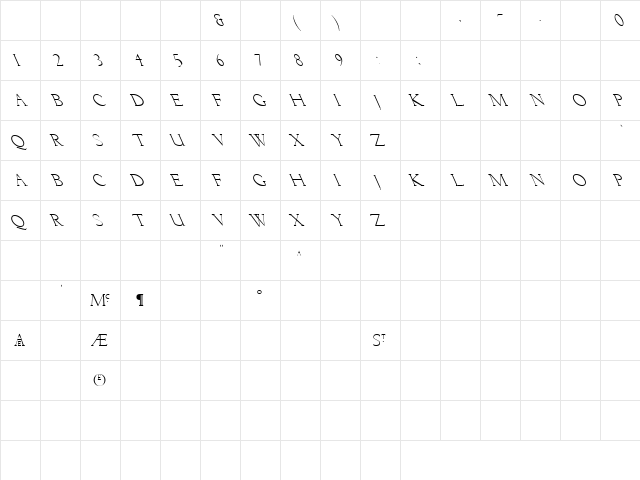
Breathe 1 Regular
Design Context for Breathe 1 Typeface
Breathe 1 takes a measured approach to typography — its balanced proportions and neutral character make it a reliable workhorse for both digital and print work.